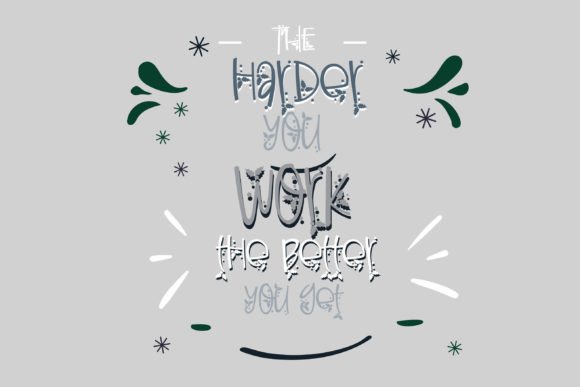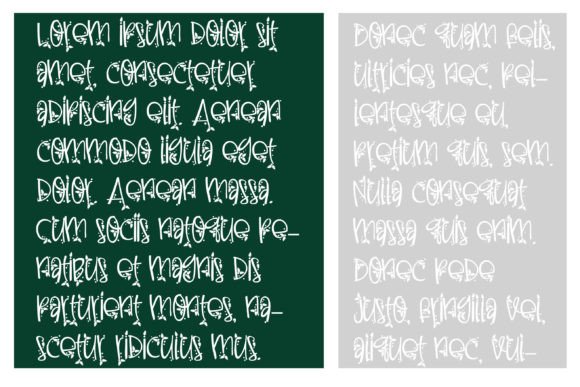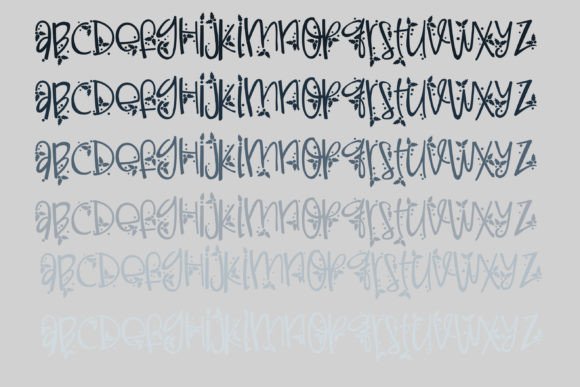
Introduction to Merry Mauve Font
This hand-crafted sans serif font features holly and snow throughout.
A hand-crafted font is a font that is designed to look like it was written by hand It is often used for invitations, greeting cards, and other items.
Key Features of Merry Mauve Font